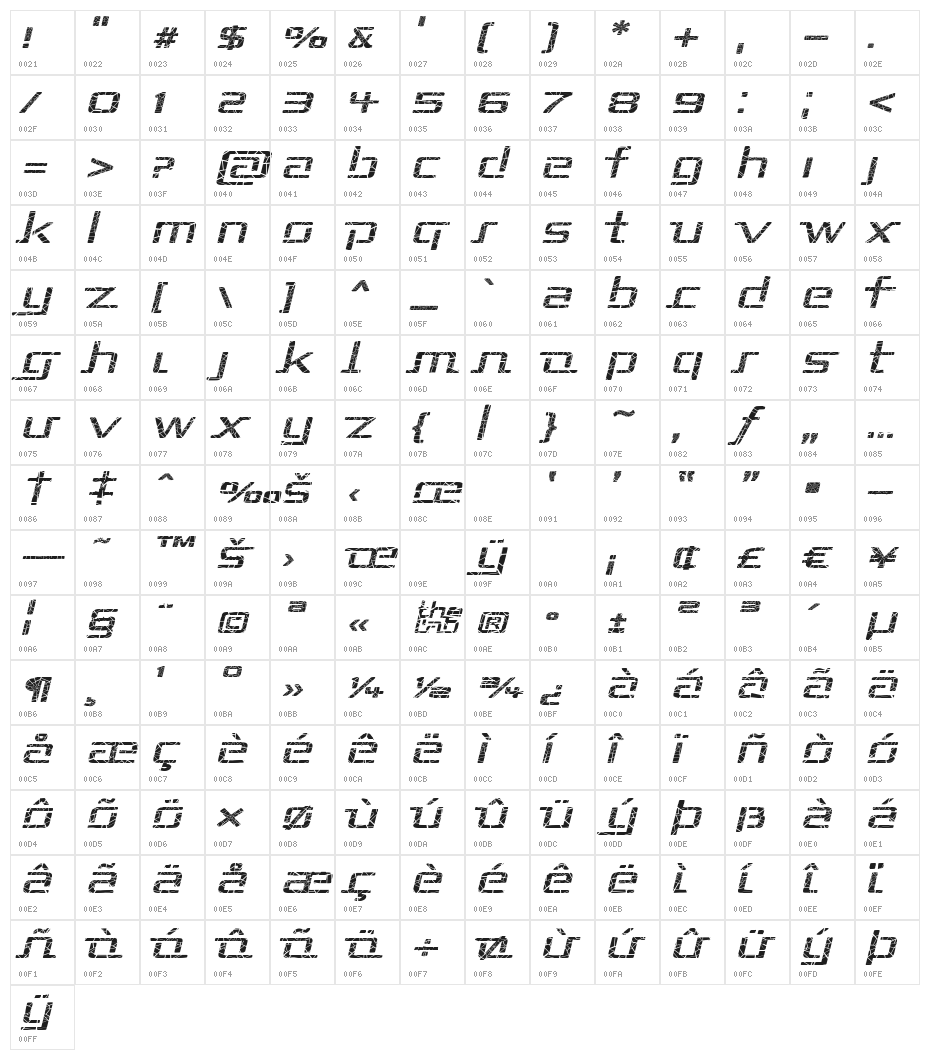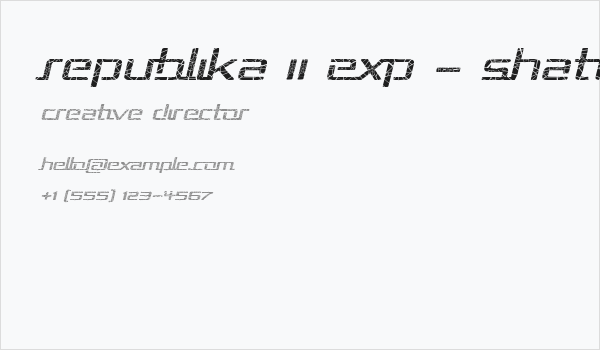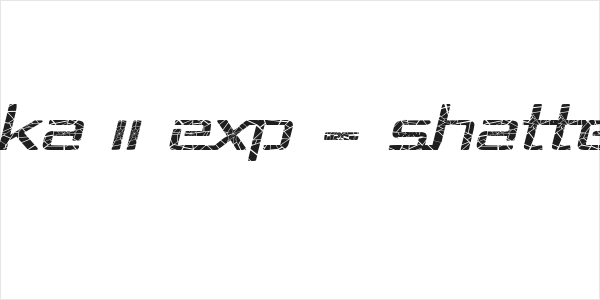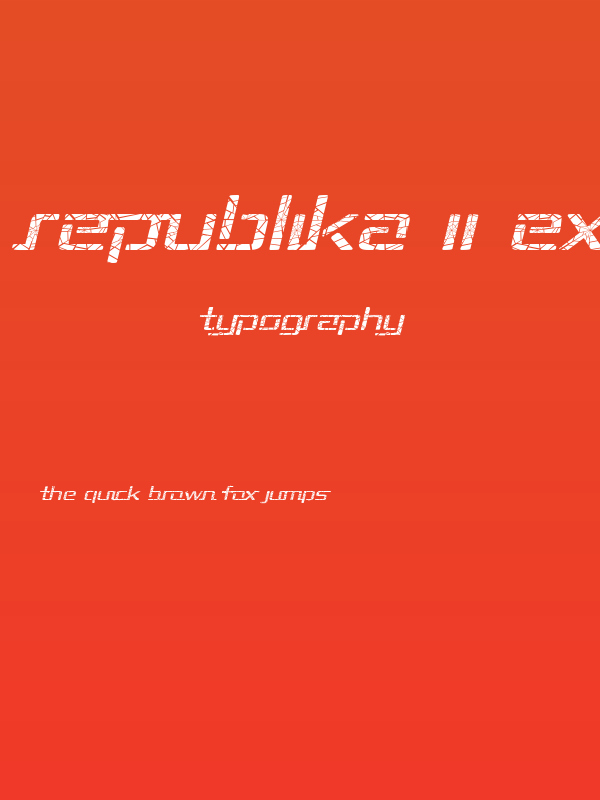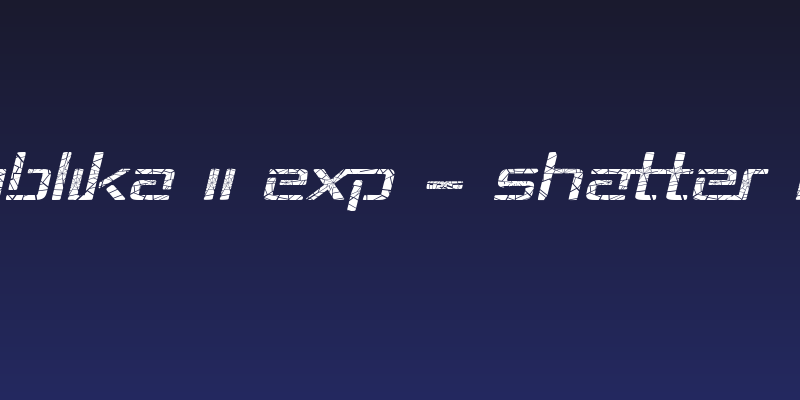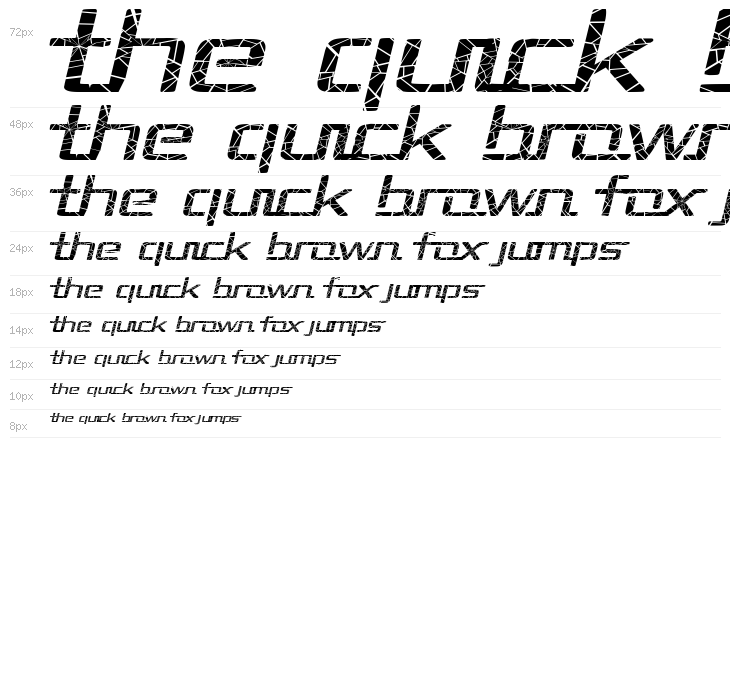
Republika II Exp - Shatter Italic Font
This font features a unique shattered effect, giving it a dynamic and edgy appearance. The characters are italicized, adding a sense of movement and energy. Each letter is composed of fragmented pieces, creating a visually striking pattern that stands out. The font maintains a consistent slant across all characters, enhancing its cohesive look. Its geometric and modern design makes it suitable for projects that require a bold and unconventional style. The shattered effect is consistent throughout, providing a uniform texture that adds depth and interest to the text.
| Proposed Projects | Ideal for use in graphic design projects, album covers, posters, and branding that require a bold and unconventional look. |